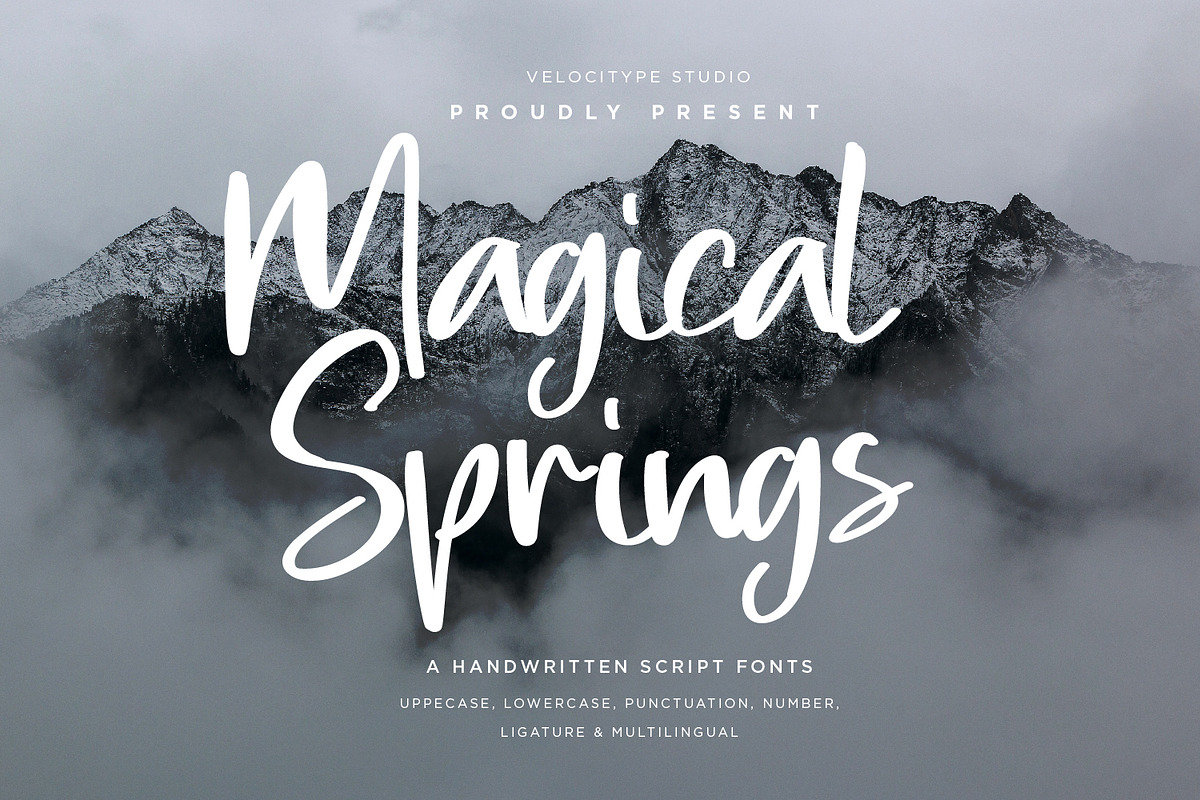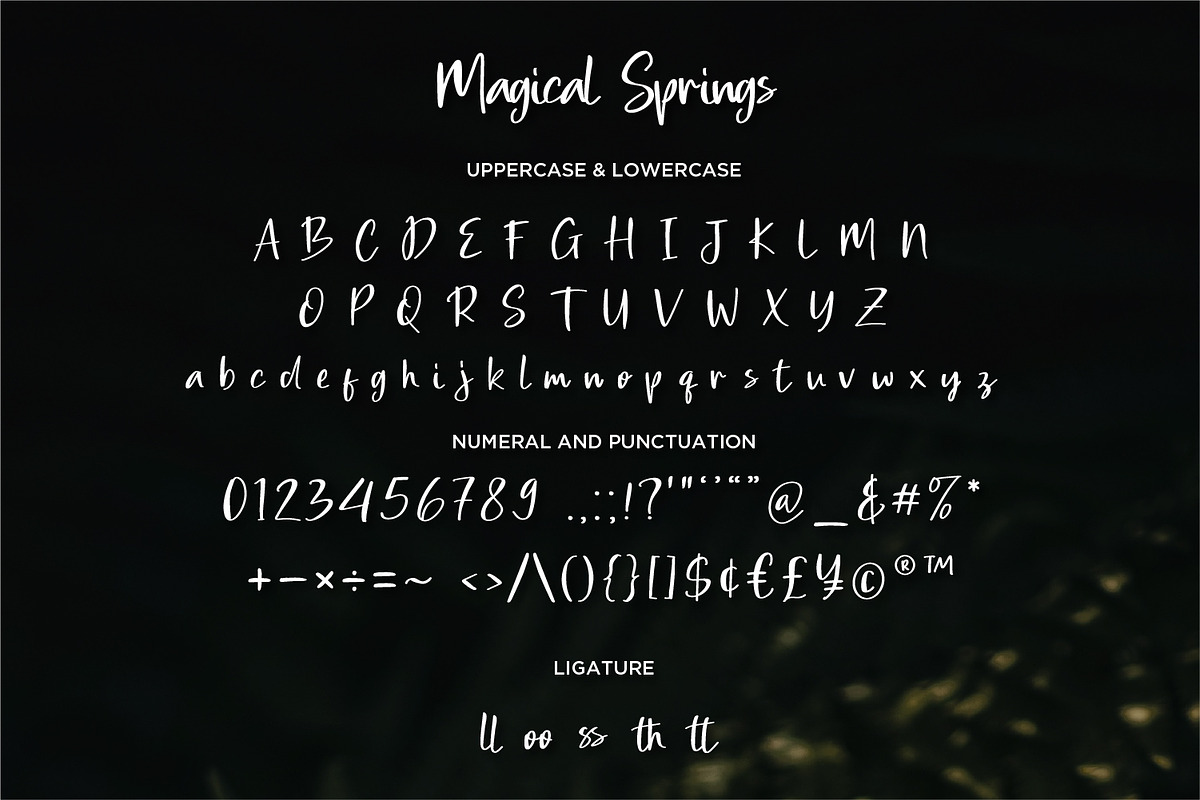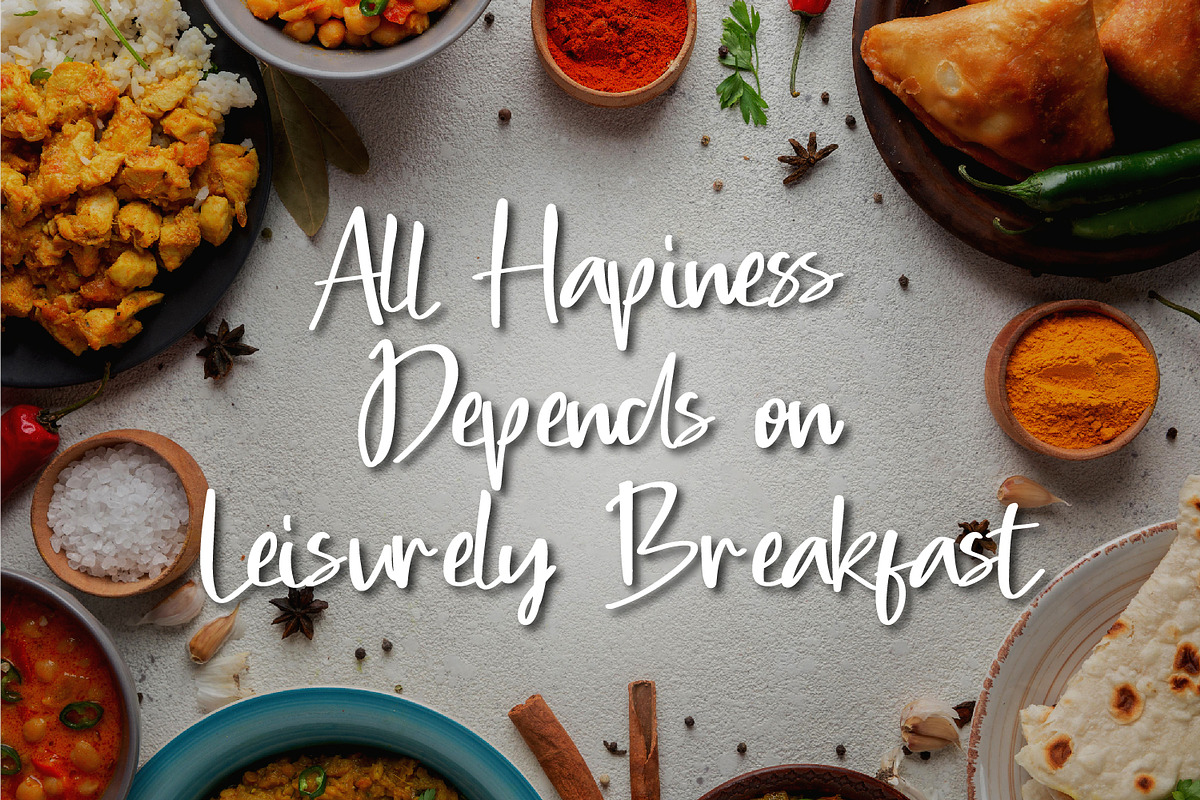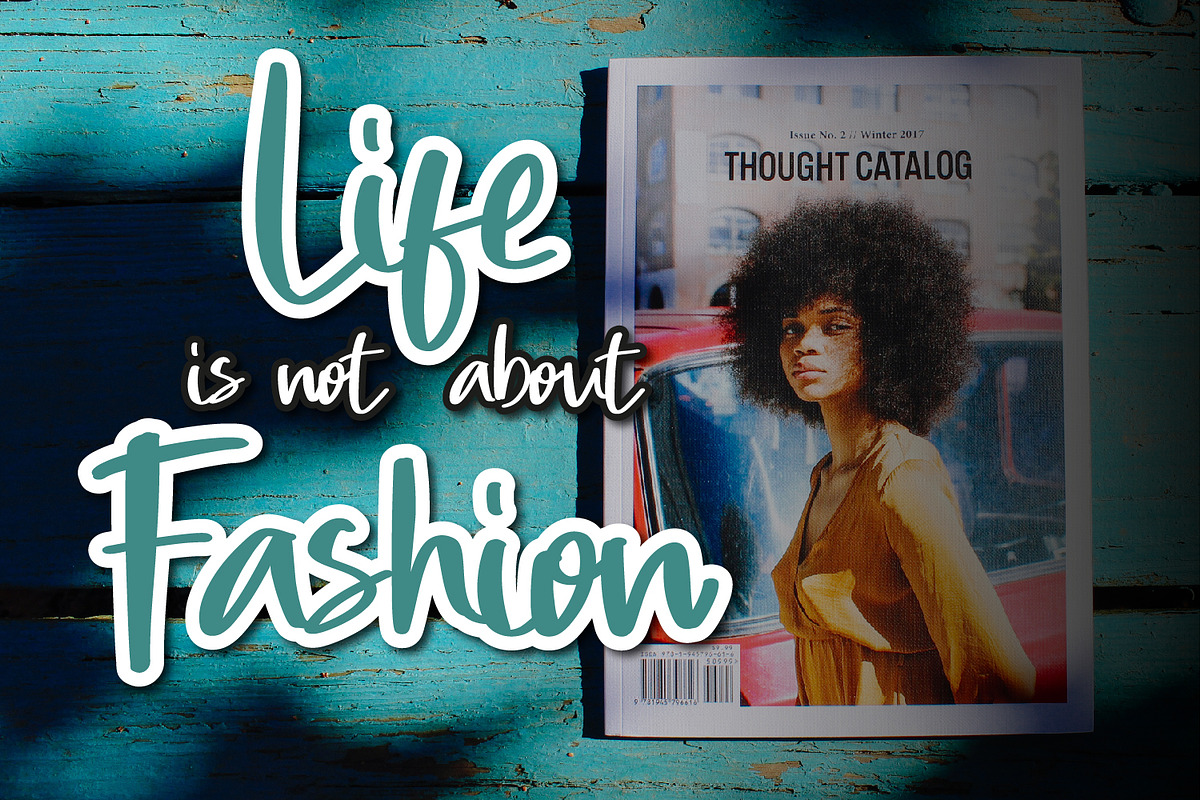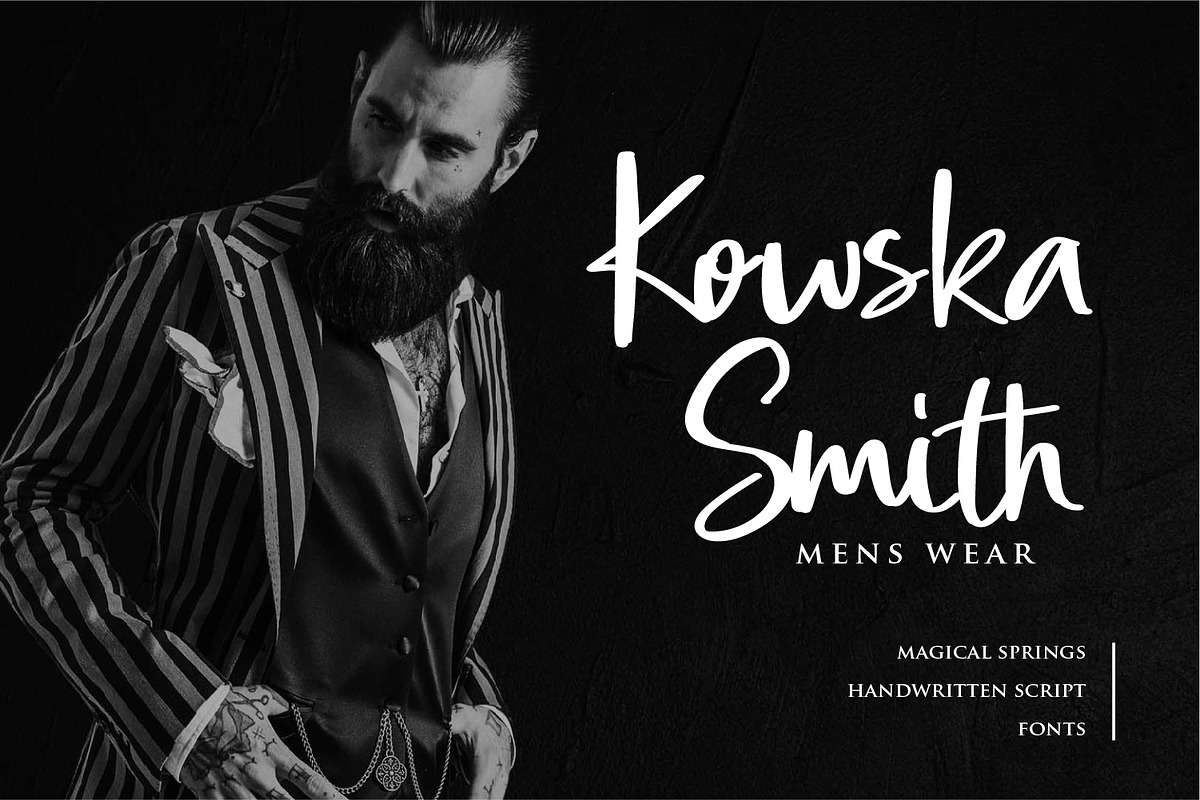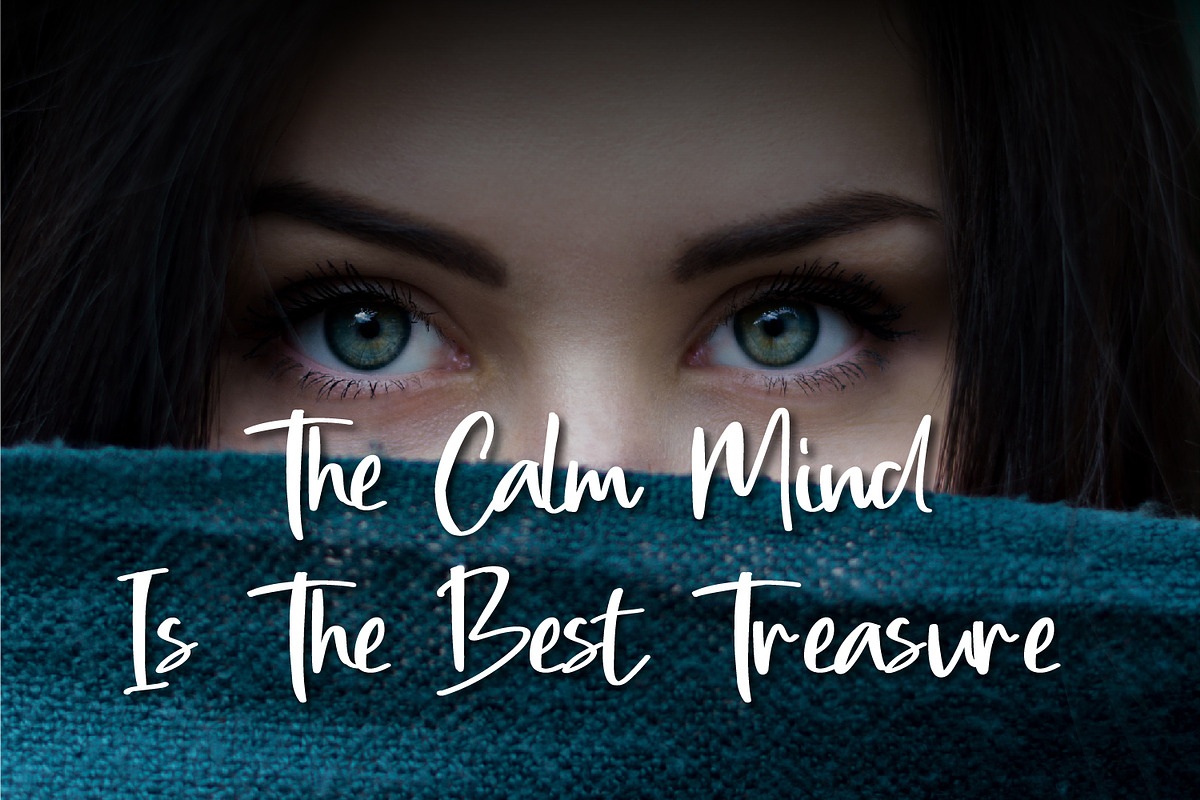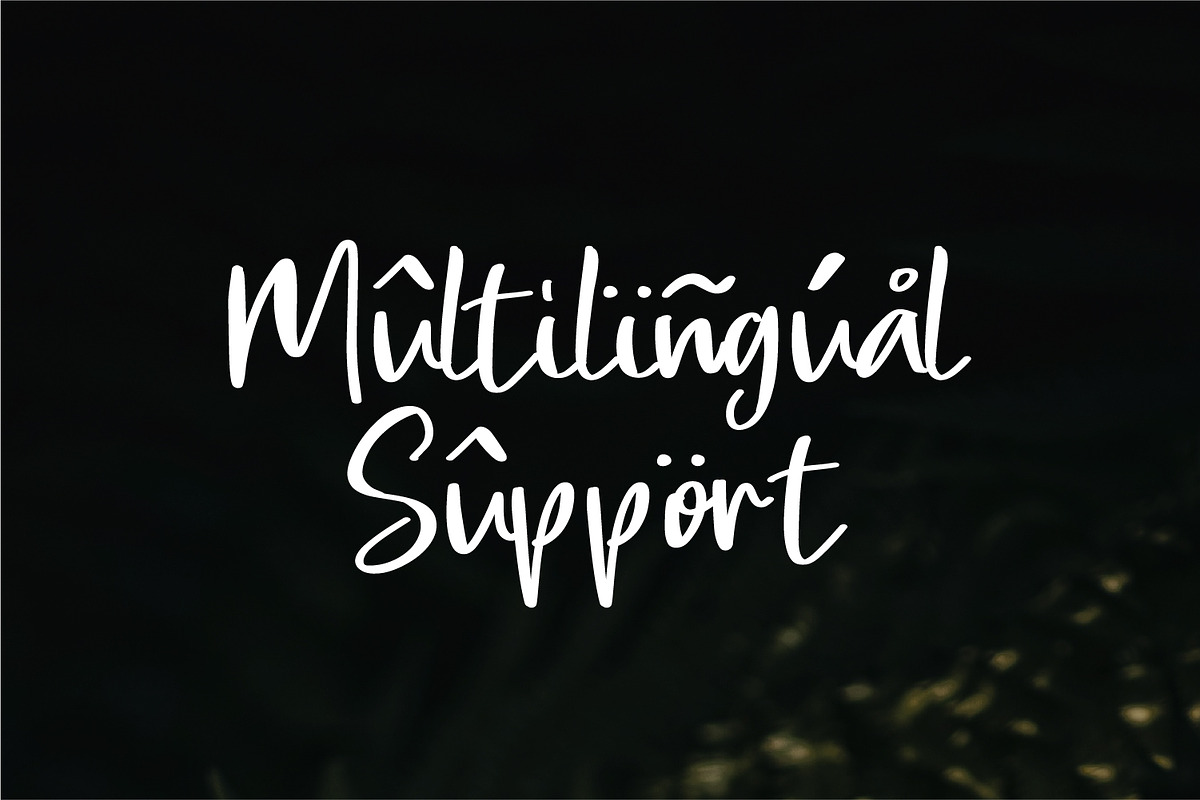
Magical Springs - Modern Script font
Magical Springs - Modern Script fonts
Magical Springs is a Modern script font, will be suitable for any projects such as logo’s, branding projects, homeware designs, product packaging, mugs, quotes, posters, shopping bags, t-shirts, book covers, name card, invitation cards, greeting cards, label, photography, watermark, special events, and all your other lovely projects that need beautiful handwriting taste.